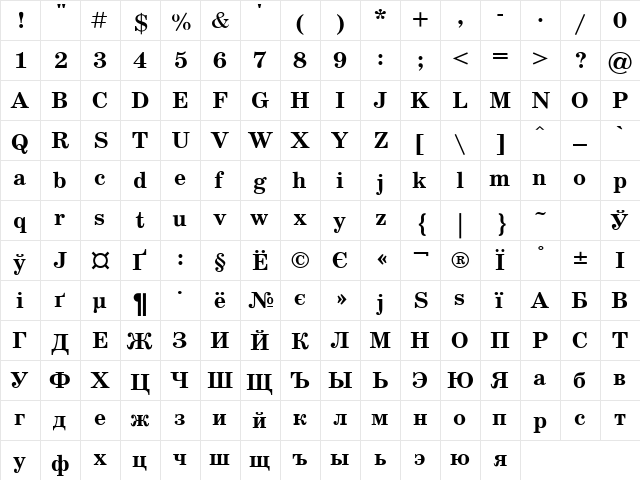
SchoolBookC Bold
Design Context for SchoolBookC Typeface
SchoolBookC takes a measured approach to typography — its balanced proportions and neutral character make it a reliable workhorse for both digital and print work. Its bold stroke weight gives it real presence on the page.
Pro Tip: Use SchoolBookC in both headline and body roles to test its range before committing to a single application.